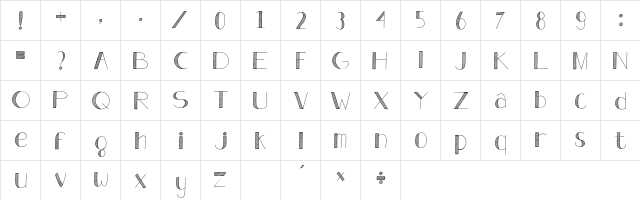
Analeigh Demo Regular
| Foundry | Orchidart Studio |
| Designer | Chiekung Diyah |
Design Context for Analeigh Demo Typeface
Analeigh Demo is a composed and adaptable typeface that performs quietly and consistently across a wide range of design contexts.